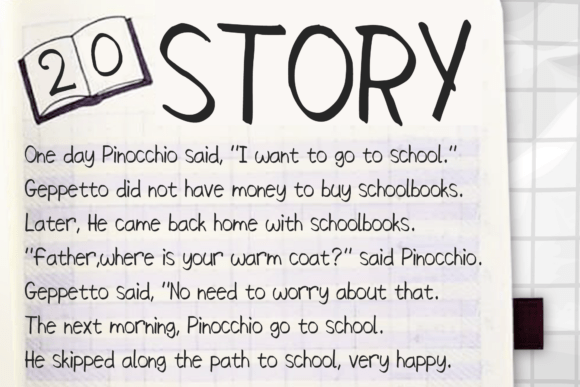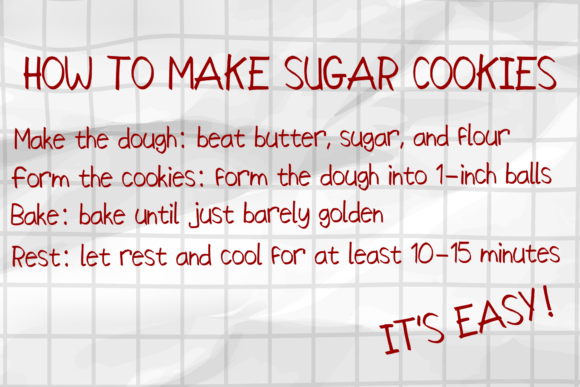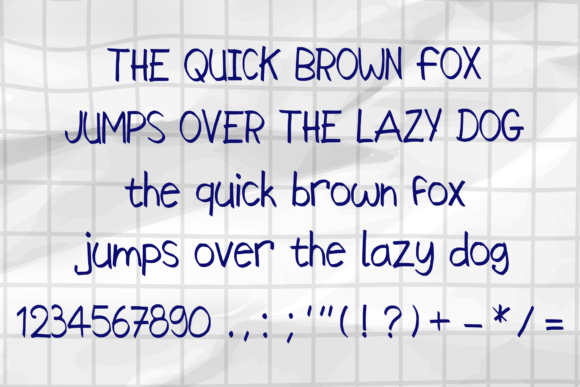
Do you remember the rush of excitement you felt as a child, rummaging through your crayon box, searching for the perfect shade of blue to bring your latest masterpiece to life? As we grow older, that spark of creativity never truly fades, but it can often get lost in the monotony of everyday tasks. That’s where the Homework Ballpoint Font comes in – an everyday font with a twist, injecting an element of fun into your routine tasks.
This highly versatile typeface is perfect for designers looking to add a dash of creativity to their projects. Whether you’re creating vibrant stickers, crafting striking logos, or designing unique cartoon drawings, Homework Ballpoint Font is the perfect choice. Its playful yet professional style effortlessly transforms any project, making it a valuable addition to any design palette.
Key Features of Homework Ballpoint Font
- Unique Characteristics: The Homework Ballpoint Font is designed to resemble handwritten notes, with subtle imperfections and variations that give it a natural, organic feel.
- Font Style: The font comes in a single style, but it offers a range of weights, from Light to Bold, allowing designers to achieve the desired level of expressiveness.
- Language Support: Homework Ballpoint Font supports a wide range of languages, including Latin, Cyrillic, and Greek alphabets, making it a versatile choice for global design projects.
Designer Review: Homework Ballpoint Font
Overall, I think the Homework Ballpoint Font has some great qualities that make it a solid choice for certain projects.
- Unique handwritten feel: The font’s imperfections and quirks give it a genuine, handwritten feel that can add character to your designs.
- Good for casual, conversational tone: The font’s informal tone makes it perfect for projects where you want to convey a relaxed, approachable vibe.
- Wide range of weights: The font comes in a variety of weights, from light to bold, giving you flexibility in how you use it.
- Lack of consistency: The font’s imperfections can sometimes be inconsistent, making it difficult to maintain a cohesive look across your design.
- Not ideal for formal or professional projects: The font’s informal tone may not be suitable for projects that require a more formal or professional tone.
- May require adjustments for legibility: In some cases, the font’s unique characteristics may require adjustments to ensure it’s readable at smaller sizes.
The Homework Ballpoint Font is a solid choice for projects where you want to convey a casual, approachable vibe. While it may have some limitations, its unique handwritten feel and wide range of weights make it a versatile font that can add character to your designs.
The Homework Ballpoint Font is ideal for creating educational materials, such as worksheets, quizzes, and presentations.
It’s also great for adding a touch of nostalgia to your designs.